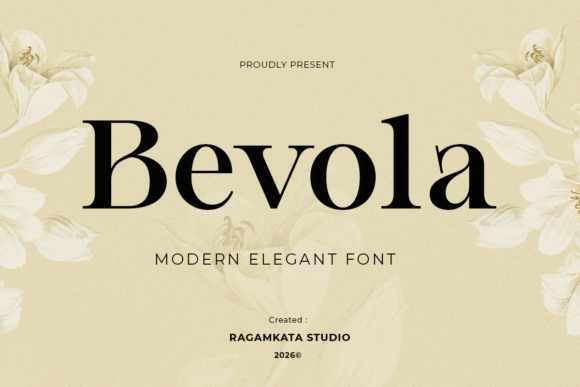
The Elegance of Bevola Font: A Designer’s New Best Friend
I still remember the project like it was yesterday. I was working on a luxury branding campaign for a high-end fashion client, and I was on a mission to find the perfect font. The client wanted something that exuded elegance, sophistication, and timeless beauty. I scoured the internet, tried out countless fonts, but nothing seemed quite right. That was until I stumbled upon Bevola Font. ✨
Bevola is a modern elegant serif font designed to bring a touch of refinement and luxury to any creative project. Its refined character shapes provide excellent readability while maintaining a stylish high-end look that elevates any design. In this article, I’ll share my experience with Bevola, its features, and how to make the most of it in your designs.
An Honest Review of Bevola Font
What I Love About Bevola
- ✨ Elegant and refined design: Bevola’s serif design is perfect for luxury branding, fashion editorials, and high-end packaging.
- ✅ Excellent readability: The font’s clear character shapes make it easy to read, even in small sizes.
- ✅ Versatile: Bevola is suitable for a wide range of design projects, from editorial layouts to logo design.
- ✨ Timeless beauty: Bevola’s classic design ensures it won’t go out of style anytime soon.
While Bevola is an excellent font, there are a few things to keep in mind: 🤔
- ⚠️ Not suitable for body text: While Bevola is readable, it’s best used for headlines, titles, and short paragraphs. For body text, consider a more traditional serif font.
- Experiment with OpenType features, such as stylistic alternates and glyphs, to add more elegance to your design.
The Story Behind Bevola Font
Bevola was designed with the goal of creating a modern elegant serif font that would bring a touch of sophistication to contemporary design. The designer aimed to craft a font that would be both refined and versatile, suitable for a wide range of creative projects. While the designer’s background is unknown, it’s clear that Bevola was created with love and attention to detail. 💕
Q: What is Bevola Font best used for?
A: Bevola is perfect for luxury branding, fashion editorials, high-end packaging, magazine layouts, beauty products, and sophisticated logo design.
Q: Can I use Bevola for body text?
A: While Bevola is readable, it’s best used for headlines, titles, and short paragraphs. For body text, consider a more traditional serif font.